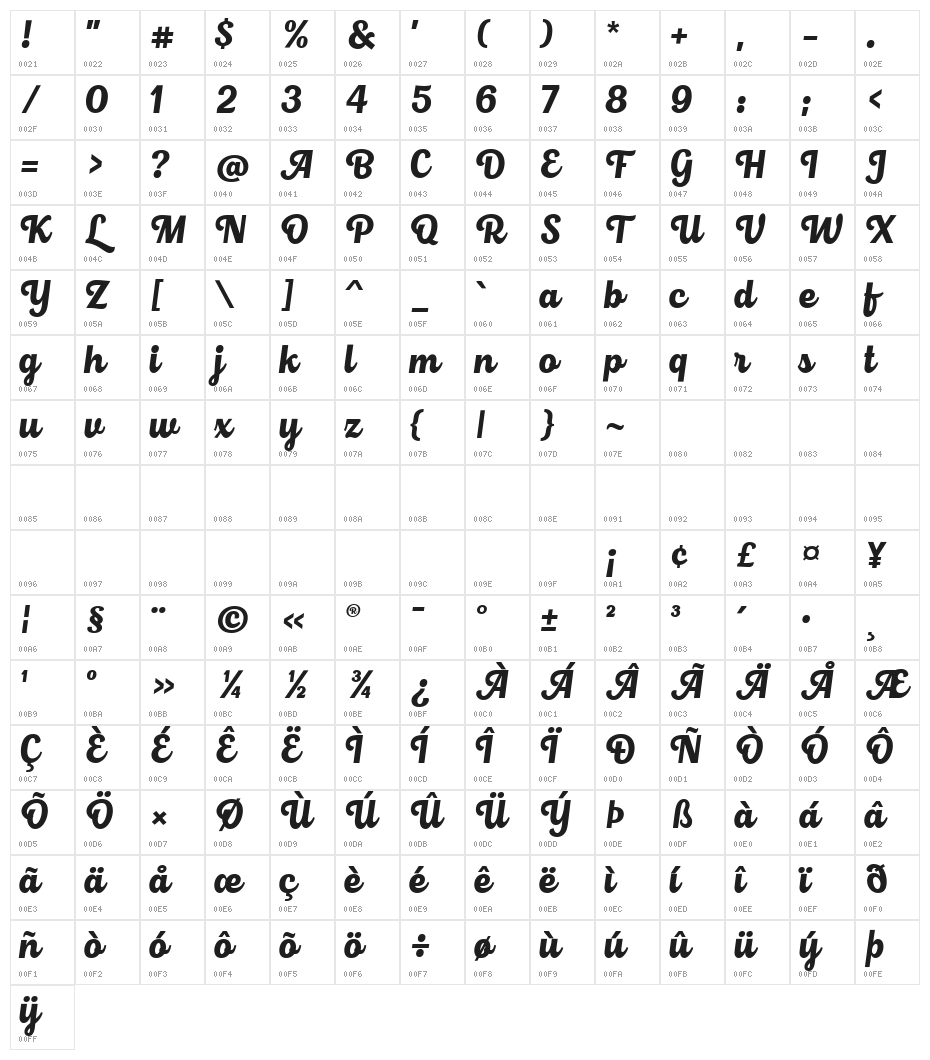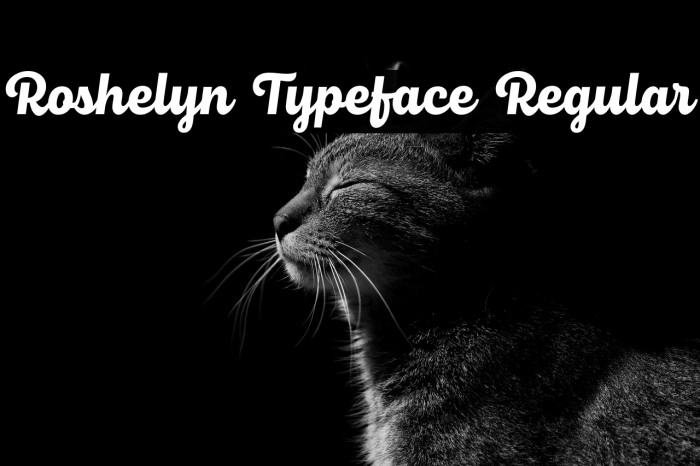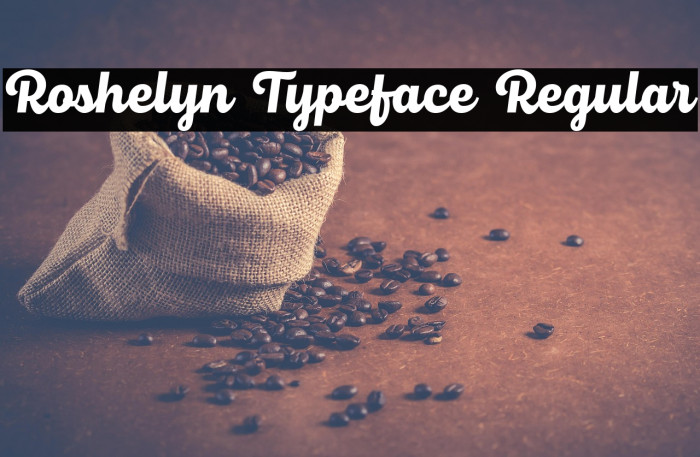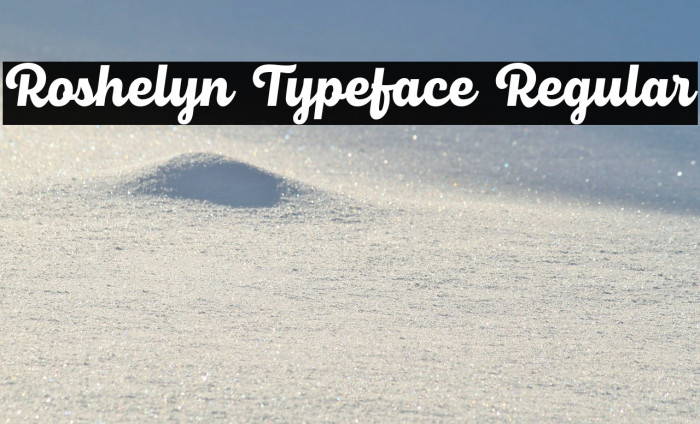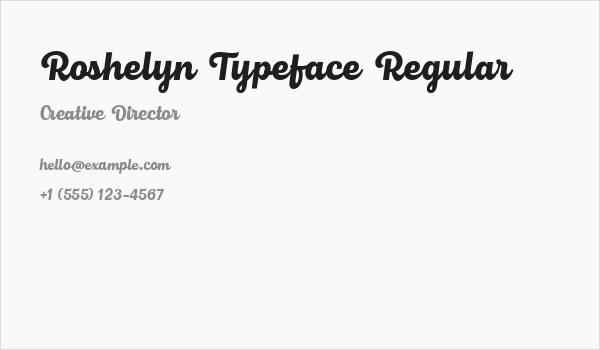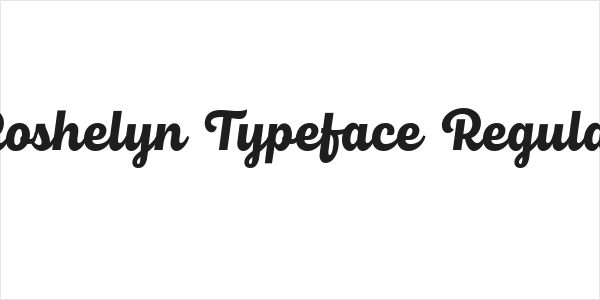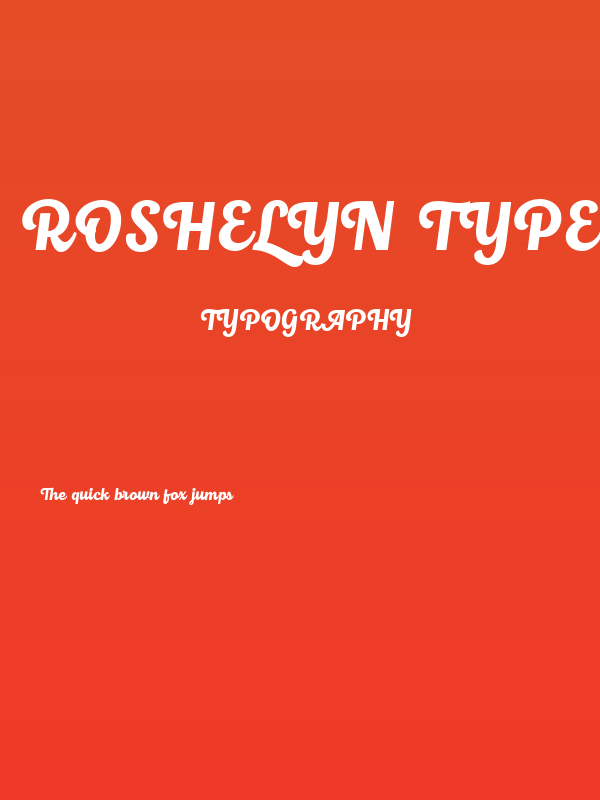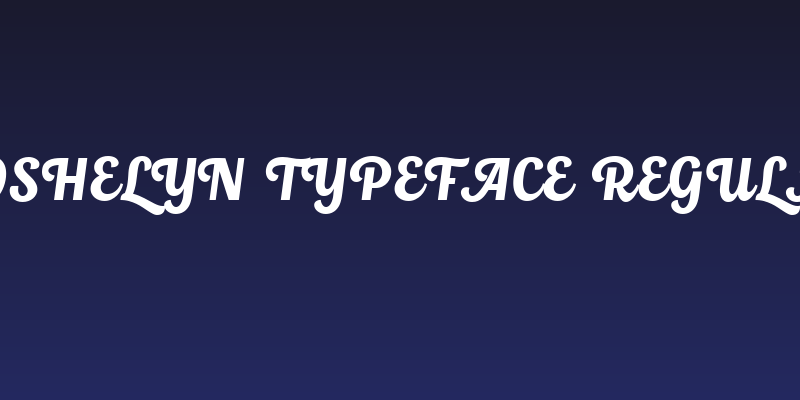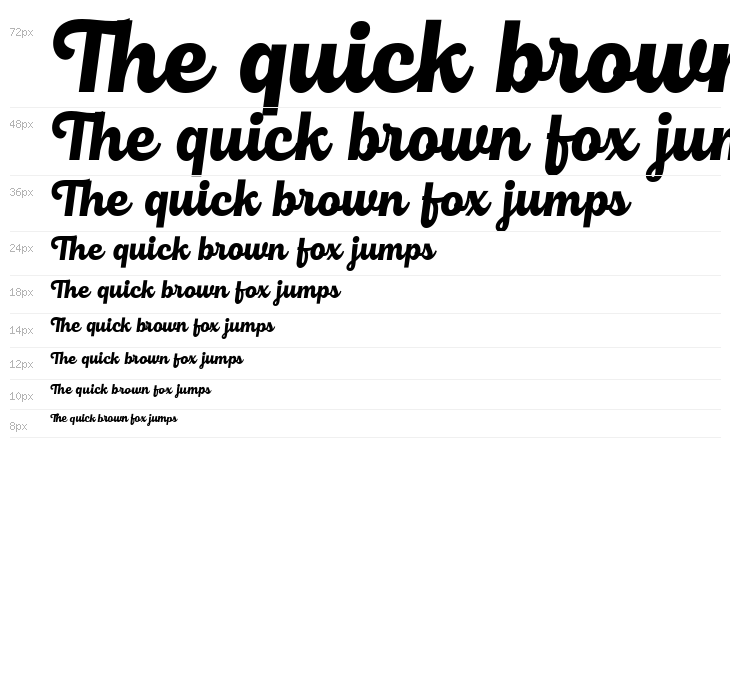
Roshelyn Typeface Regular Font
Roshelyn Typeface Regular Description
This typeface features a bold and dynamic script style with a modern flair. The characters are well-rounded and exhibit a smooth, flowing appearance, making it ideal for creating a sense of movement and elegance. The uppercase letters are slightly more formal, while the lowercase letters maintain a casual, handwritten feel. The numerals are consistent with the overall style, ensuring readability and cohesion. Special characters are included, adding versatility for various design needs. The font's boldness and slight slant give it a distinctive presence, suitable for eye-catching designs.
| Proposed Projects | Ideal for branding, invitations, posters, and social media graphics. |